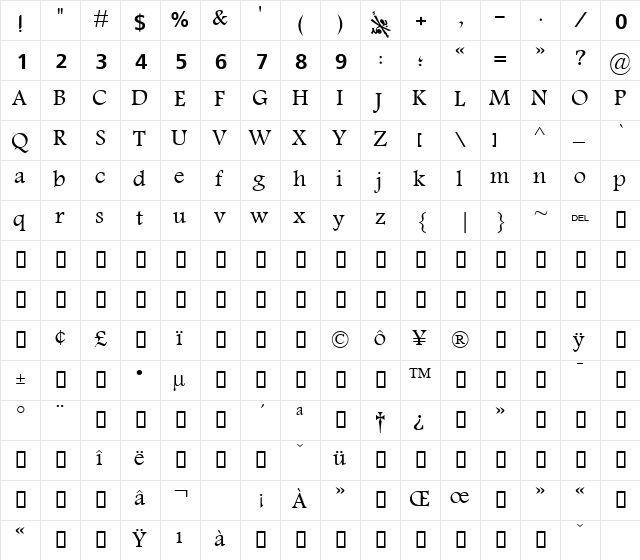
ma3ali-aqsa Font Preview
ma3ali-aqsa ma3ali-aqsa
ma3ali-aqsa Font Details
| Foundry | BrandCentral |
| Designer | Khaled |
Design Context for ma3ali-aqsa Typeface
ma3ali-aqsa takes a measured approach to typography — its balanced proportions and neutral character make it a reliable workhorse for both digital and print work.